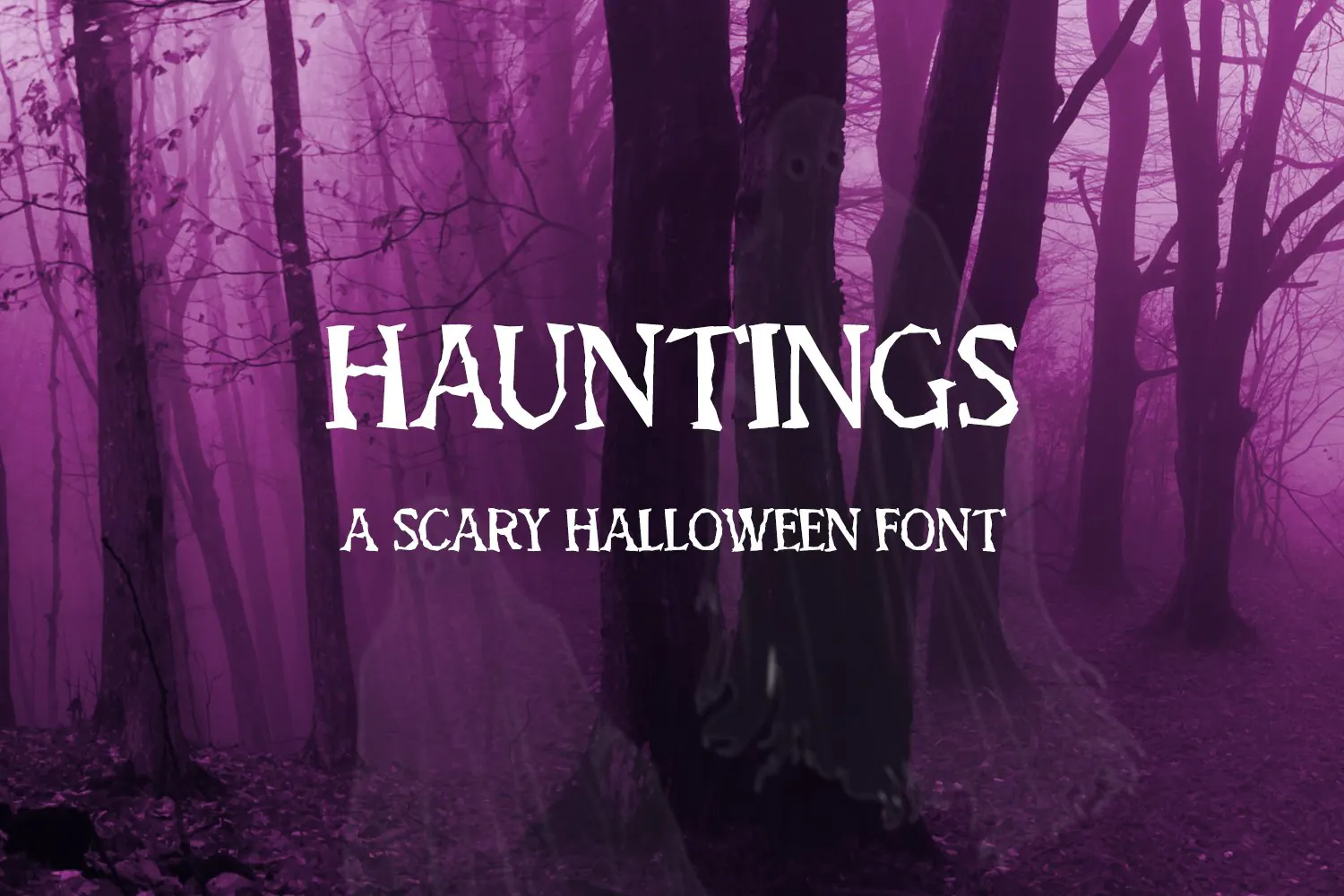
Hauntings Serif Font
Hauntings is a ragged, jagged all-caps display font. The characters in the lowercase slots vary a bit from their uppercase equivalents, so feel free to type in mixed case to add a bit of variance in your designs. Hauntings is a great fit for logos, branding, print design, web design, shirts, and other projects that need a dramatic and haunted aesthetic. Fair warning: your Cricut or Silhouette machine may not like this font for vinyl cutting, but it’s fantastic for print then cut.